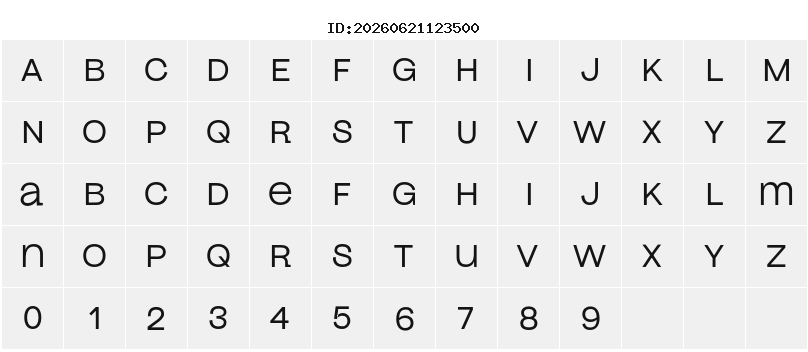
Gothic №60 Preview
• Font Name: Gothic №60
About Gothic №60.otf
Gothic №60.otf is a modern, elegant sans-serif font designed for ultimate readability and visual harmony. Perfect for branding, headlines, web design, and print materials.